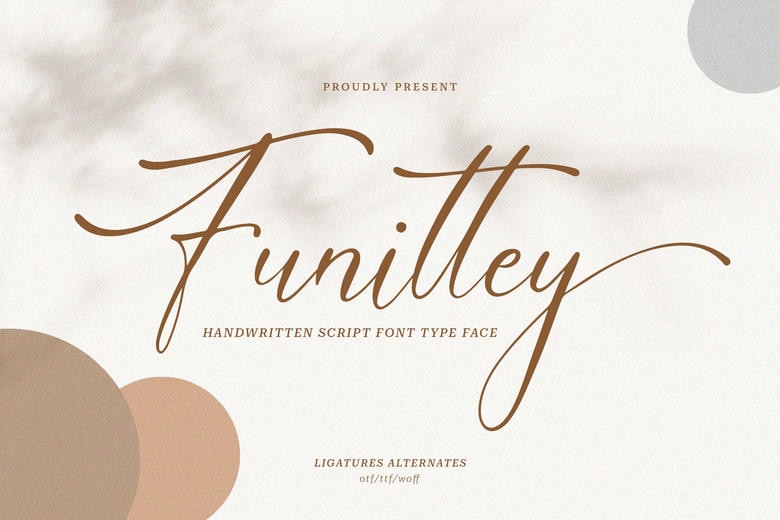
Funittey Font
Funittey is a beautiful and graceful font which belongs to the script type styles. When using cursive writing, the letters are joined and the writing appears neat, pretty and artistic in nature. Funittey is ideal for invitations, logos, and special designs as it introduces class and beauty to any project.
Funittey Handwritten Script Font